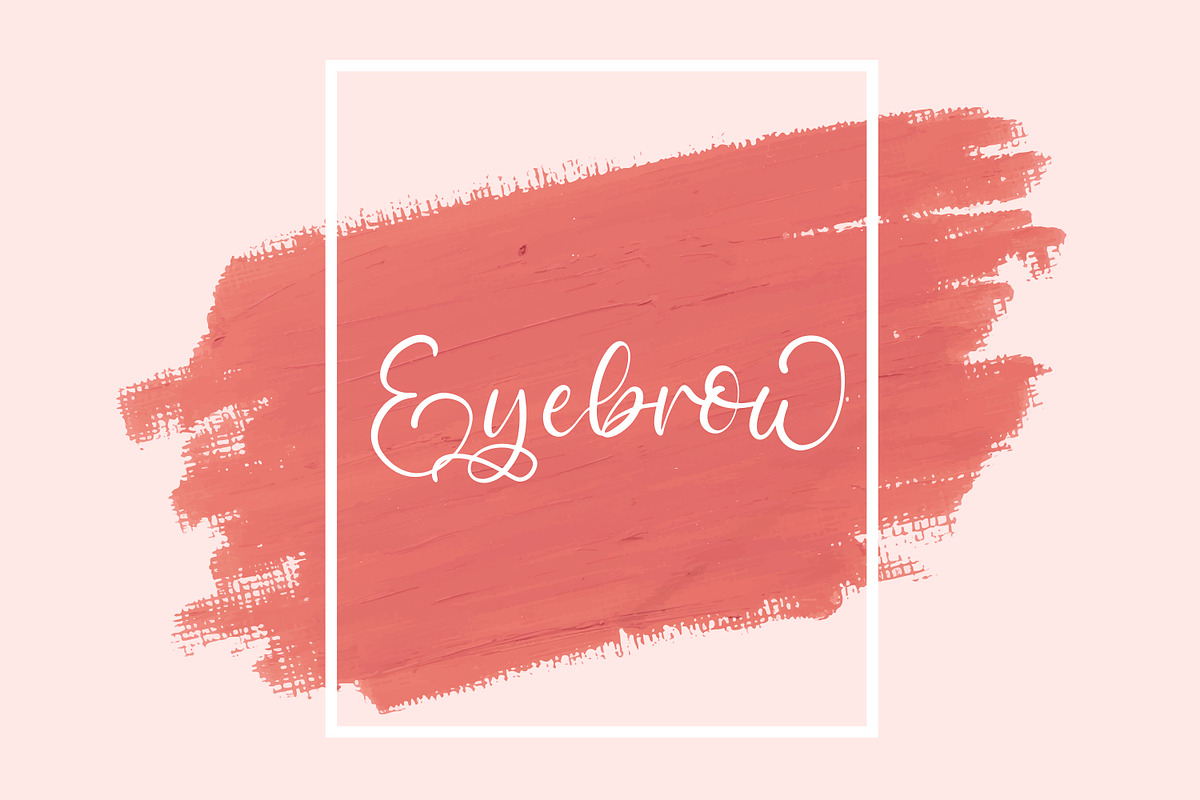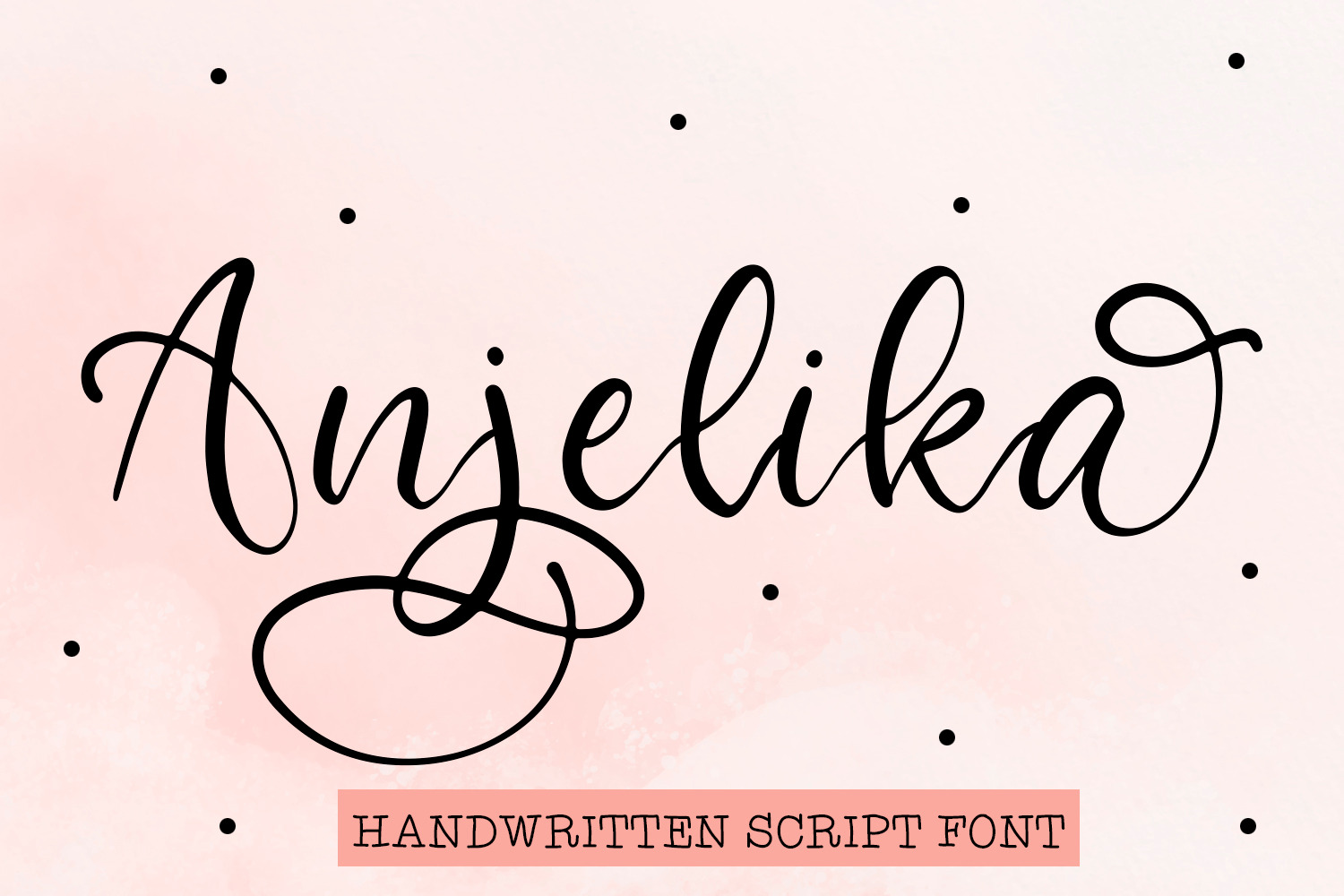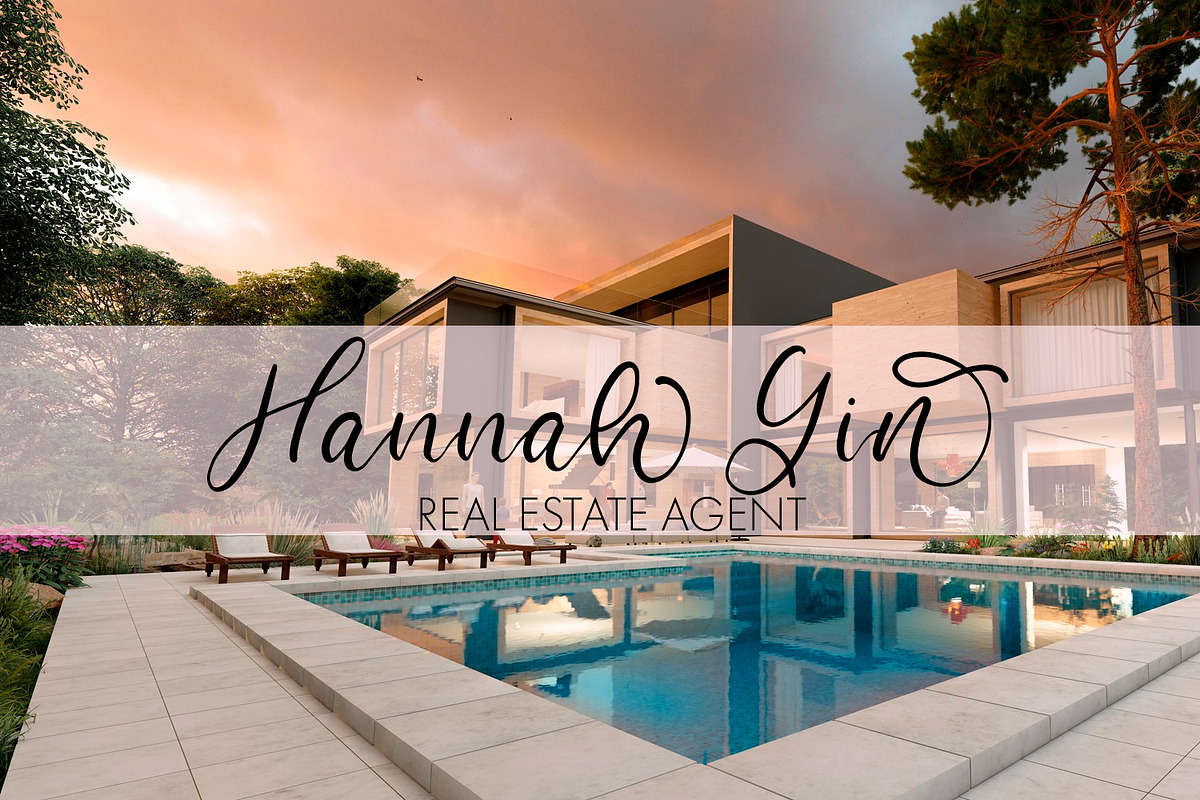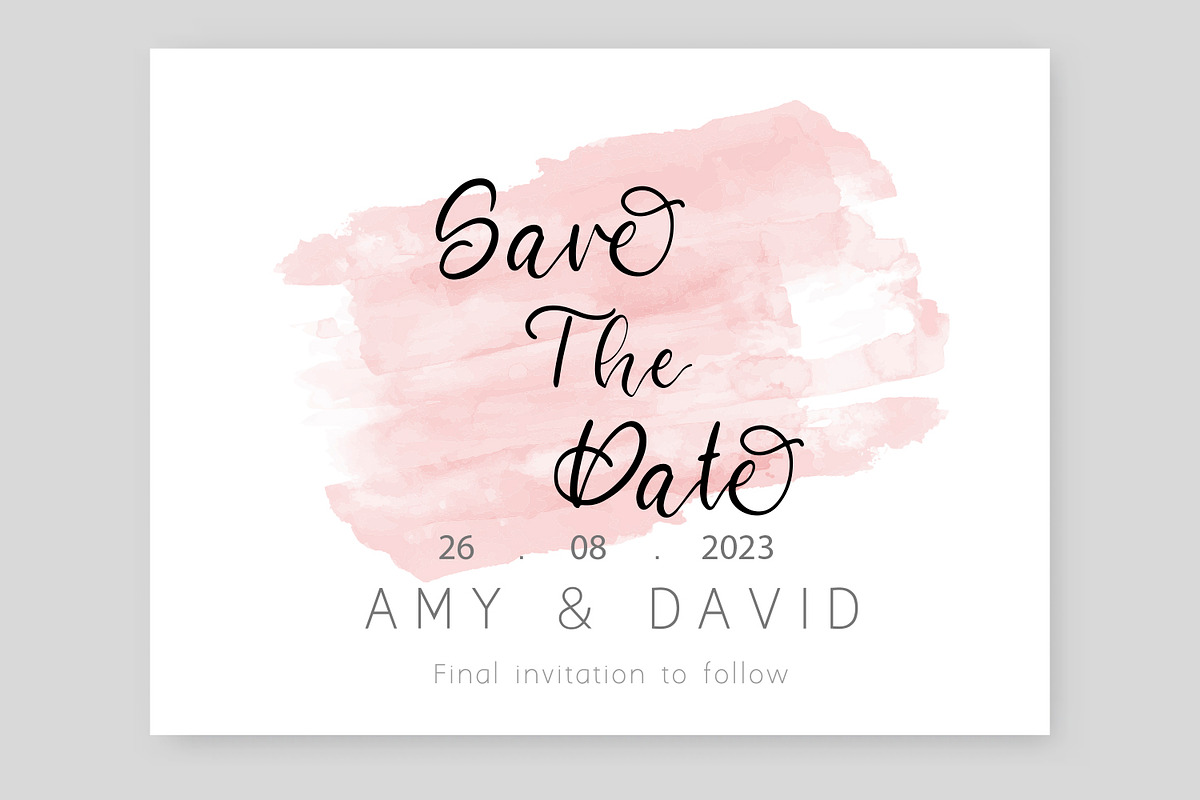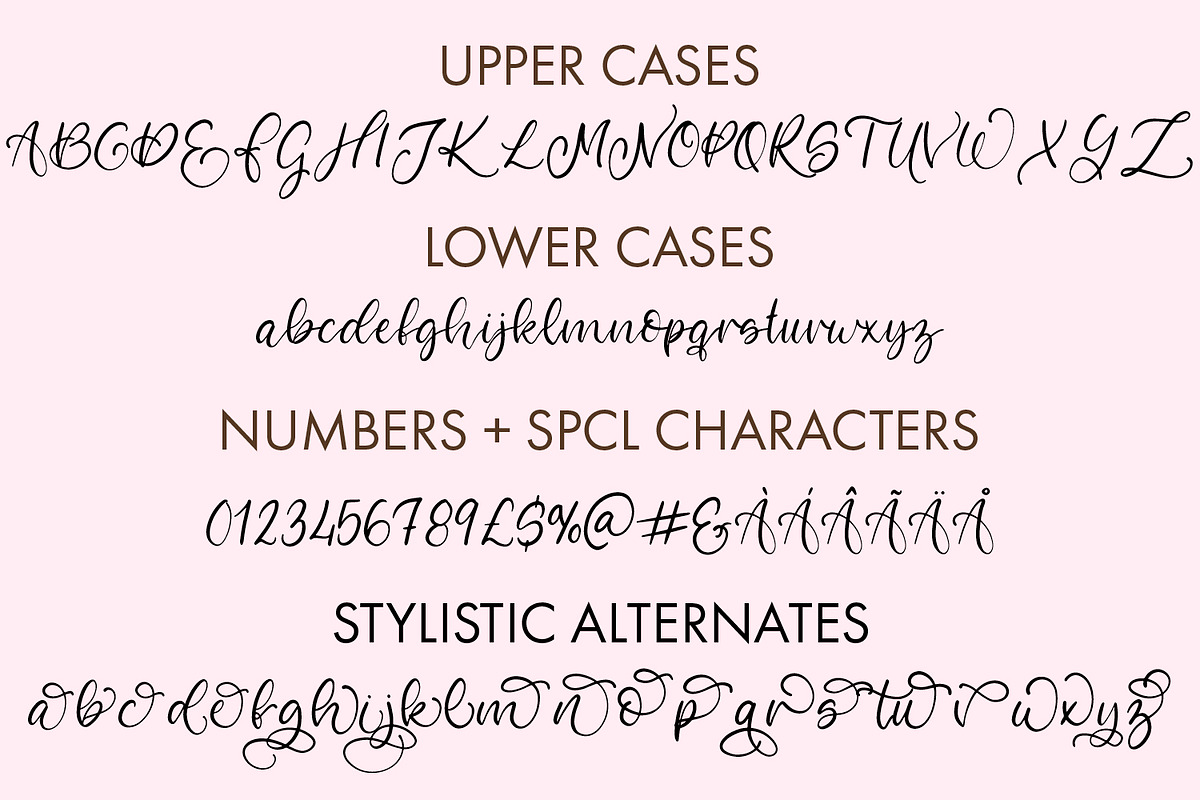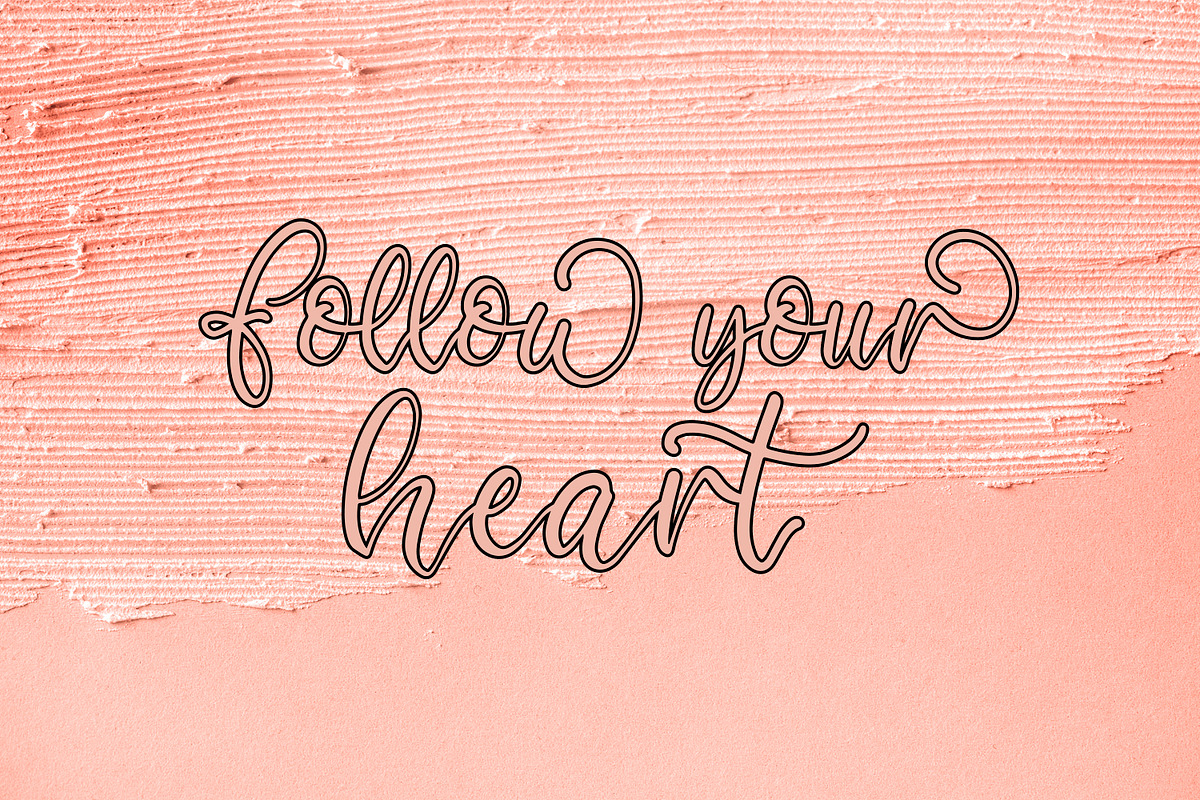
Anjelika A Handwritten Script Font
Elevate your designs with our exquisite handwritten script font. Embrace modern calligraphy in its most elegant form, featuring captivating stylistic alternates. This font adds a touch of sophistication to invitations, branding, and more. Discover the beauty of timeless elegance with each stroke. Perfect for those who seek a harmonious blend of style and grace.